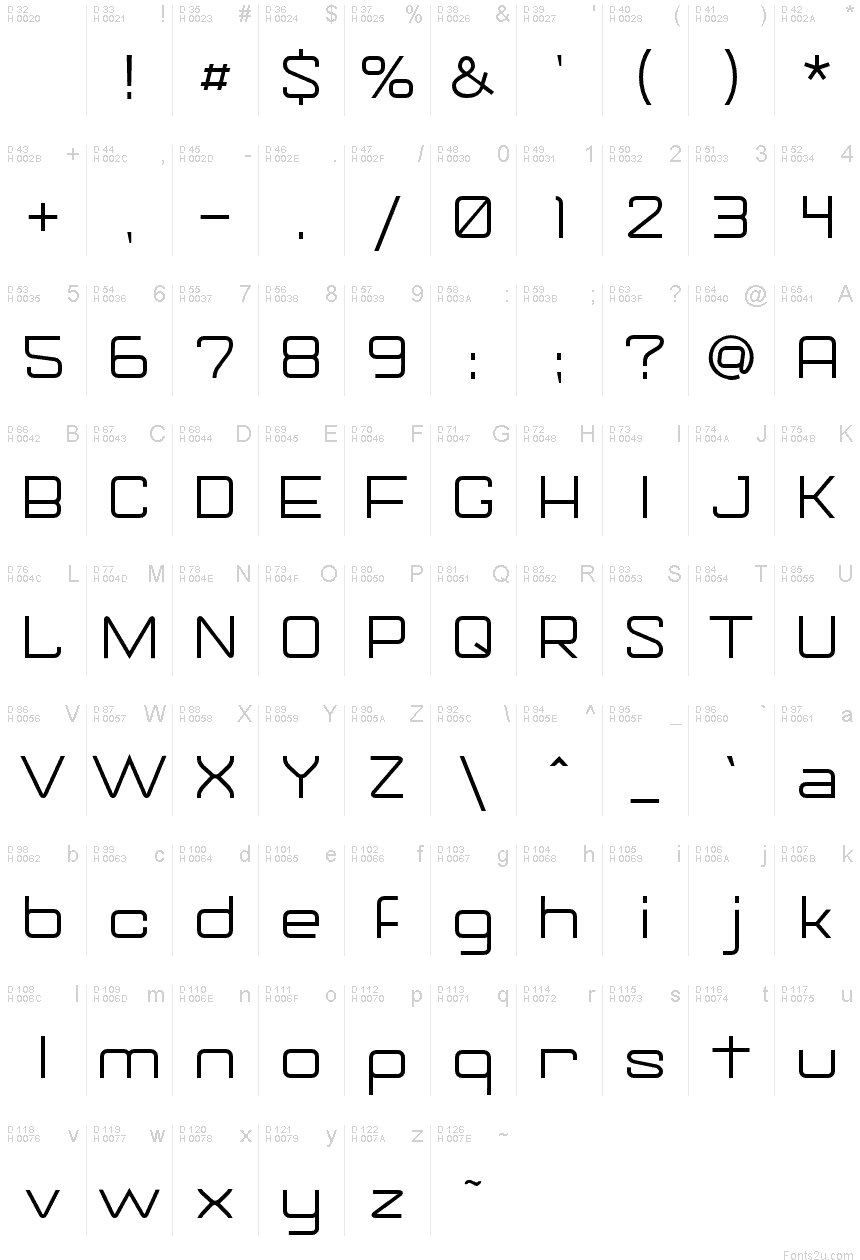
Gorila
Gorila is a free modern display font with broad, monoline letters and a sleek geometric build. Rounded corners soften its squared, engineered silhouette.
A technology event identity is an especially convincing use, since the lettering recalls streamlined screens and hardware. It also suits electronic music posters, fashion branding, and futuristic packaging. In these settings, the long horizontal strokes and open shapes can become part of a circuit-like graphic rather than serving as neutral text.